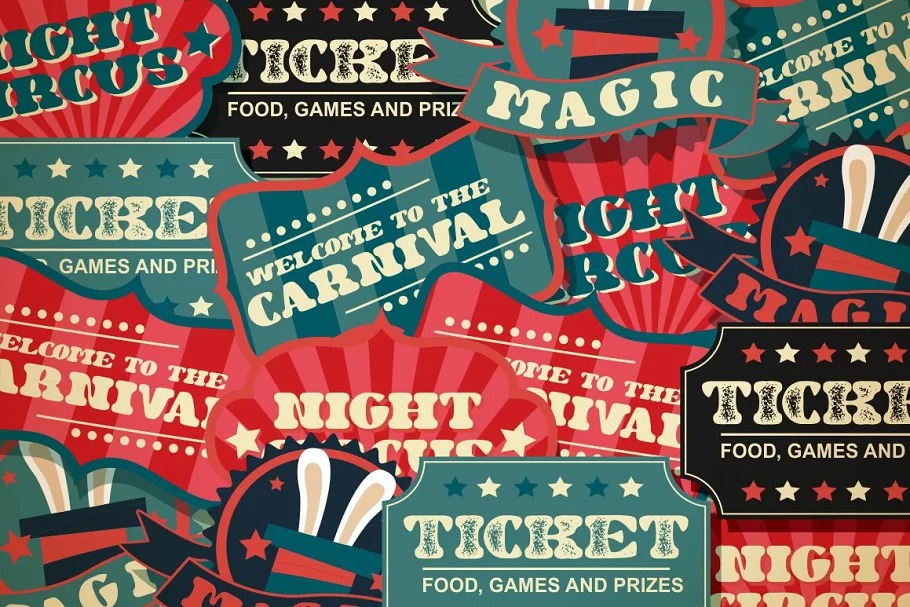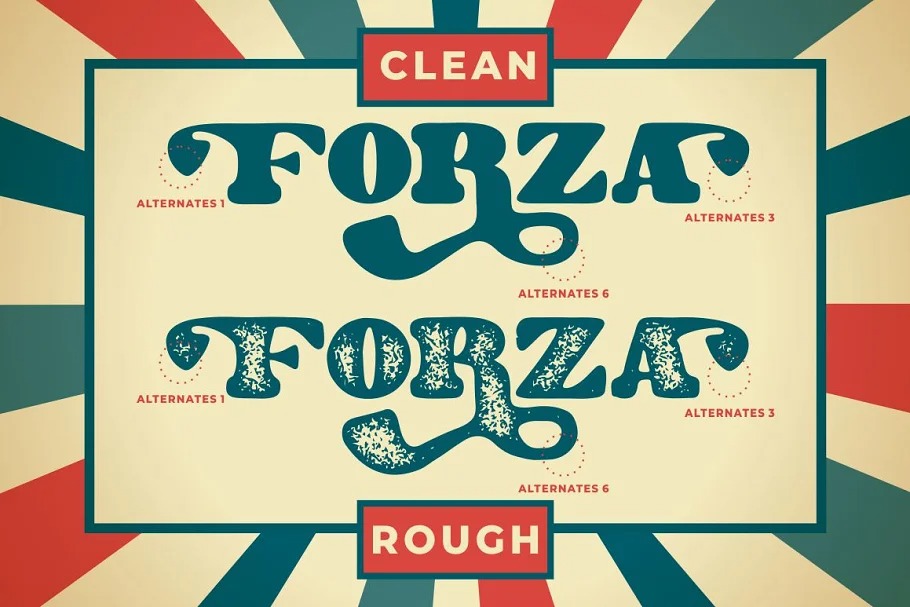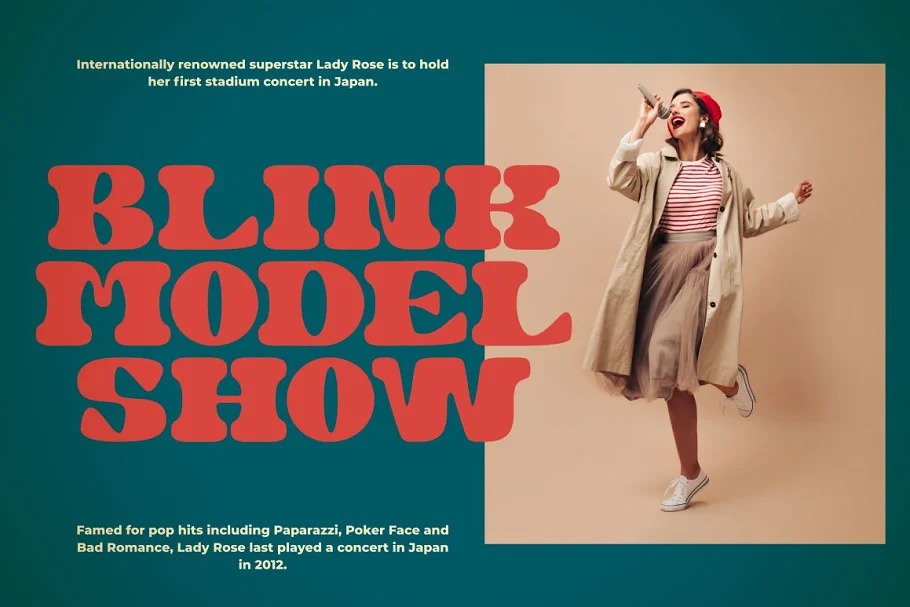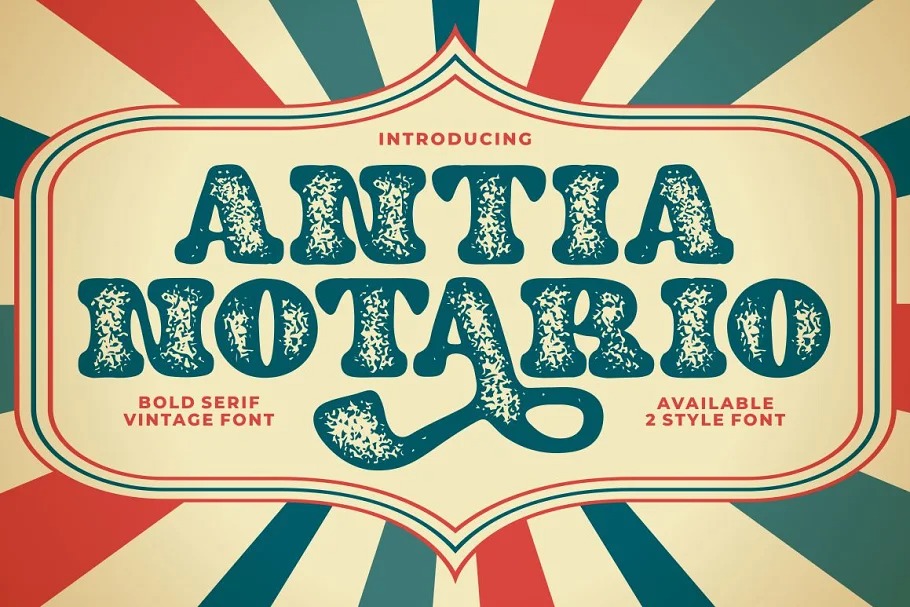
Antia Notario Display Font is a display font created primarily for Publications or Display Fonts. It’s bold, groovy, clean and unique with vintage fell. Antia Notario is very versatile font that works great in large and small sizes. Helps to create layout design in 60s or 70s design projects. Come with open type feature with a lot of alternates, its help you to make great lettering. Antia Notario best uses for heading headlines, cover, poster, logos, quotes, product packaging, merchandise, social media & greeting cards and many more.